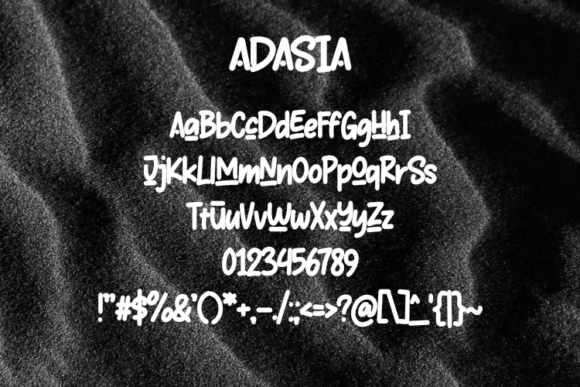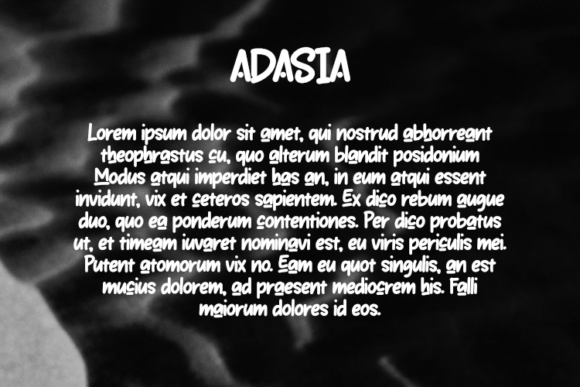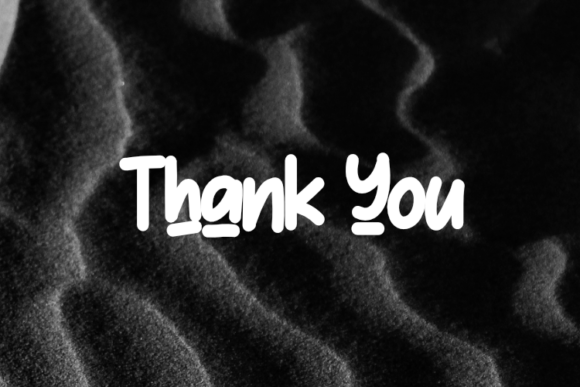
Unleash Your Creativity with Adasia Font: The Ultimate Typographic Tool for Designers
In the world of design, fonts play a crucial role in conveying messages, expressing emotions, and creating a lasting impression. For designers and crafters looking to add a unique touch to their clothing and t-shirt designs, Adasia Font is the perfect solution. This distinctive font is specifically crafted to infuse a unique fingerprint into your designs, setting them apart from the rest. In this article, we’ll explore the features, benefits, and uses of Adasia Font, and how it can elevate your designs to the next level.
What is Adasia Font?
Adasia Font is a bold typographic tool designed to make a statement. Its unique style and aesthetic make it an ideal choice for designers and crafters who want to create stunning impressions across various products, including clothing, t-shirts, and more. The font is universally compatible with all design software, ensuring seamless integration into your workflow.
Key Features of Adasia Font
- Bold and Eye-Catching: Adasia Font is designed to make a statement, delivering an aesthetic that’s not easily overlooked.
- Unique Fingerprint: The font’s distinctive style adds a unique fingerprint to your designs, setting them apart from others.
Benefits of Using Adasia Font
Adasia Font offers numerous benefits to designers and crafters, including:
- Enhanced Creativity: With Adasia Font, you can experiment with new and exciting design possibilities, pushing the boundaries of your creativity.
- Consistency: Adasia Font ensures consistency across various products and designs, helping you establish a strong brand identity.
- Professionalism: The font’s bold and eye-catching style adds a professional touch to your designs, making them more appealing to your audience.
Tips and Tricks for Getting the Most Out of Adasia Font
To maximize the potential of Adasia Font, consider the following tips and tricks:
- Experiment with Different Sizes: Adasia Font looks great in various sizes, so experiment to find the perfect fit for your design.
- Play with Colors: The font’s bold style looks amazing in different colors, so don’t be afraid to try new combinations.
- Combine with Other Fonts: Adasia Font pairs well with other fonts, so try combining it with complementary fonts to create a unique look.
Adasia Font is a game-changer for designers and crafters looking to add a unique touch to their clothing and t-shirt designs. With its bold and eye-catching style, universal compatibility, and versatile OTF file format, this font is the perfect tool for creating stunning impressions across various products. Whether you’re a seasoned designer or just starting out, Adasia Font is an excellent addition to your typographic arsenal. So why wait? Embrace the extraordinary allure of Adasia Font and take your designs to the next level!